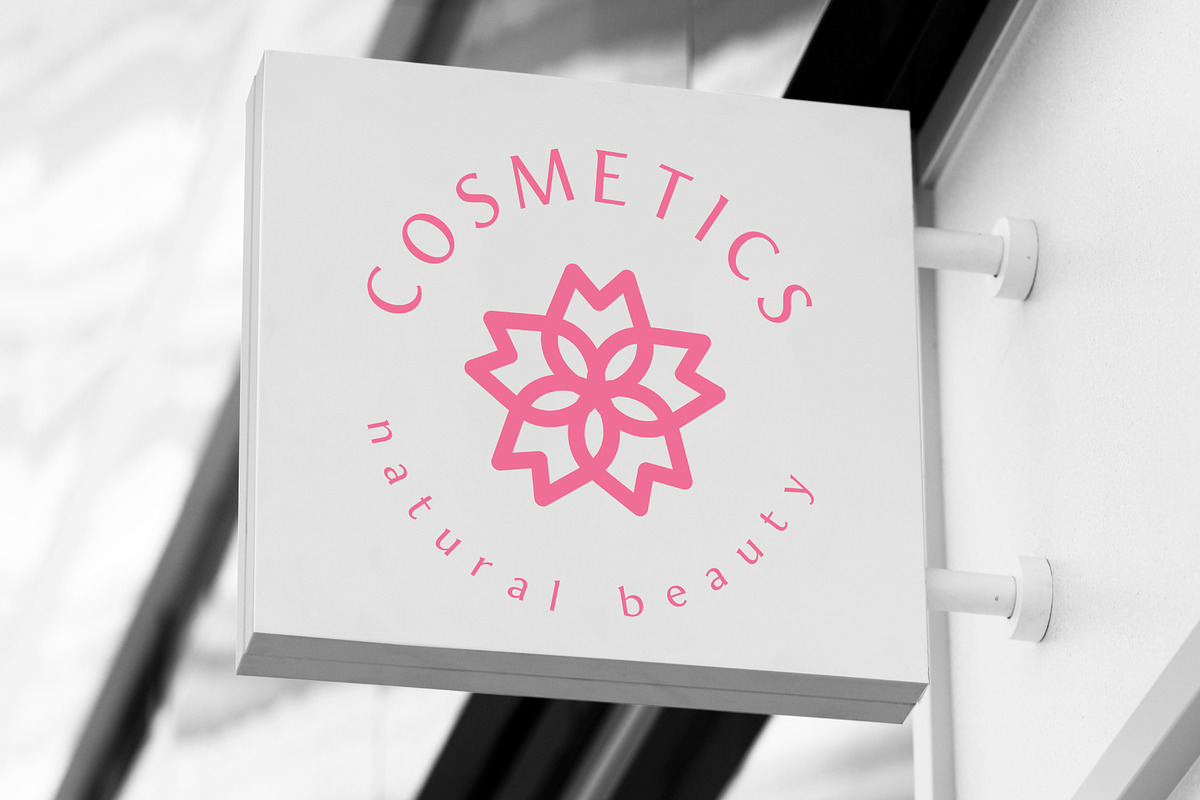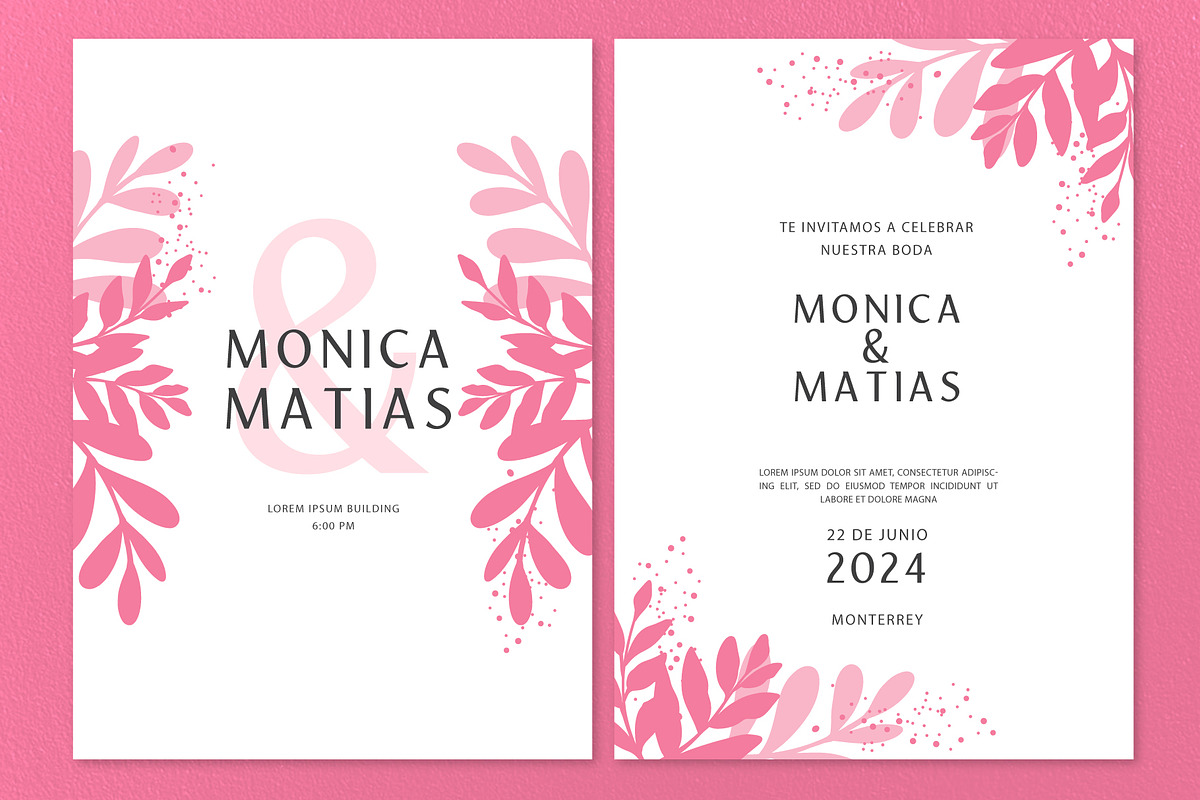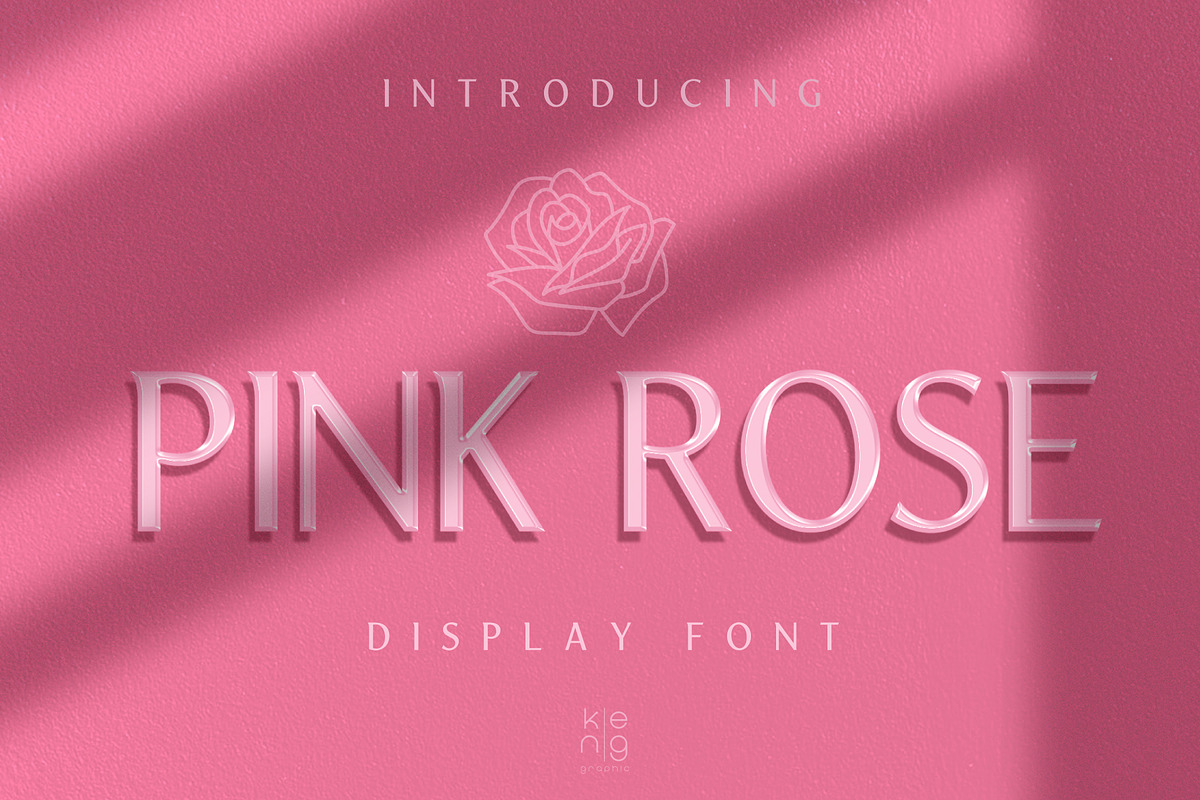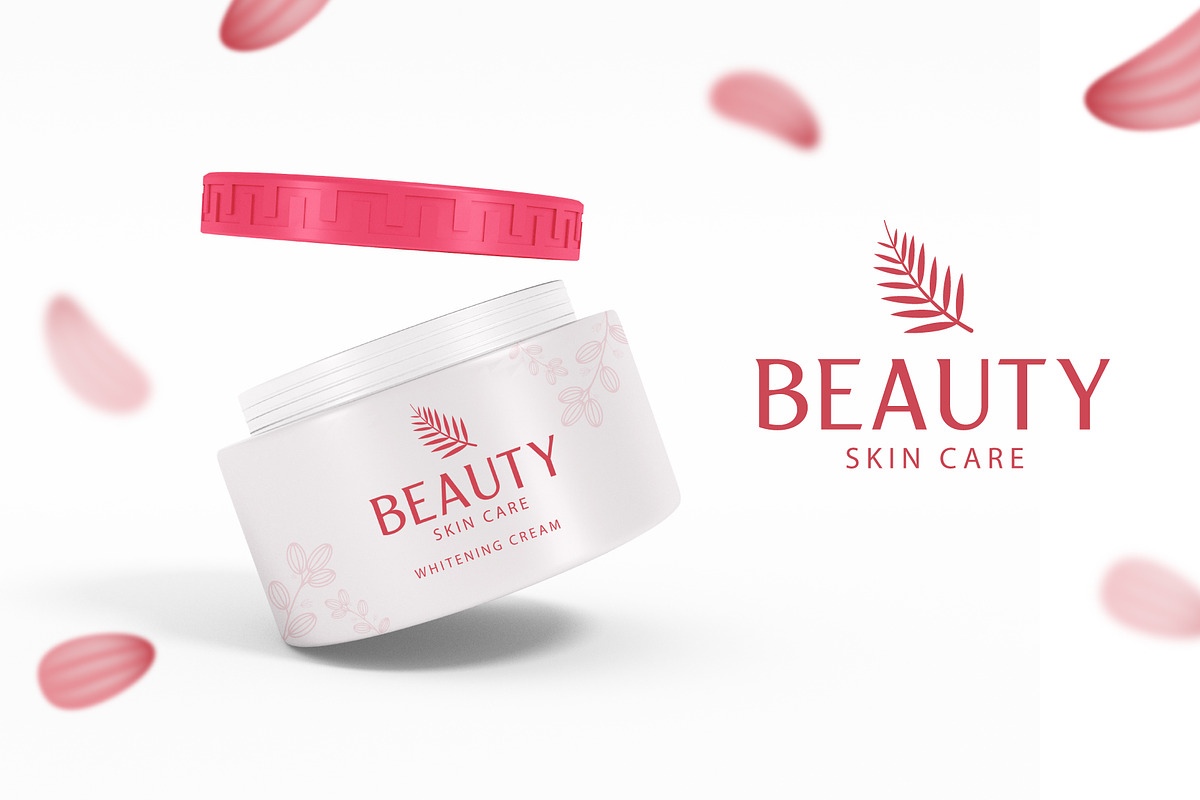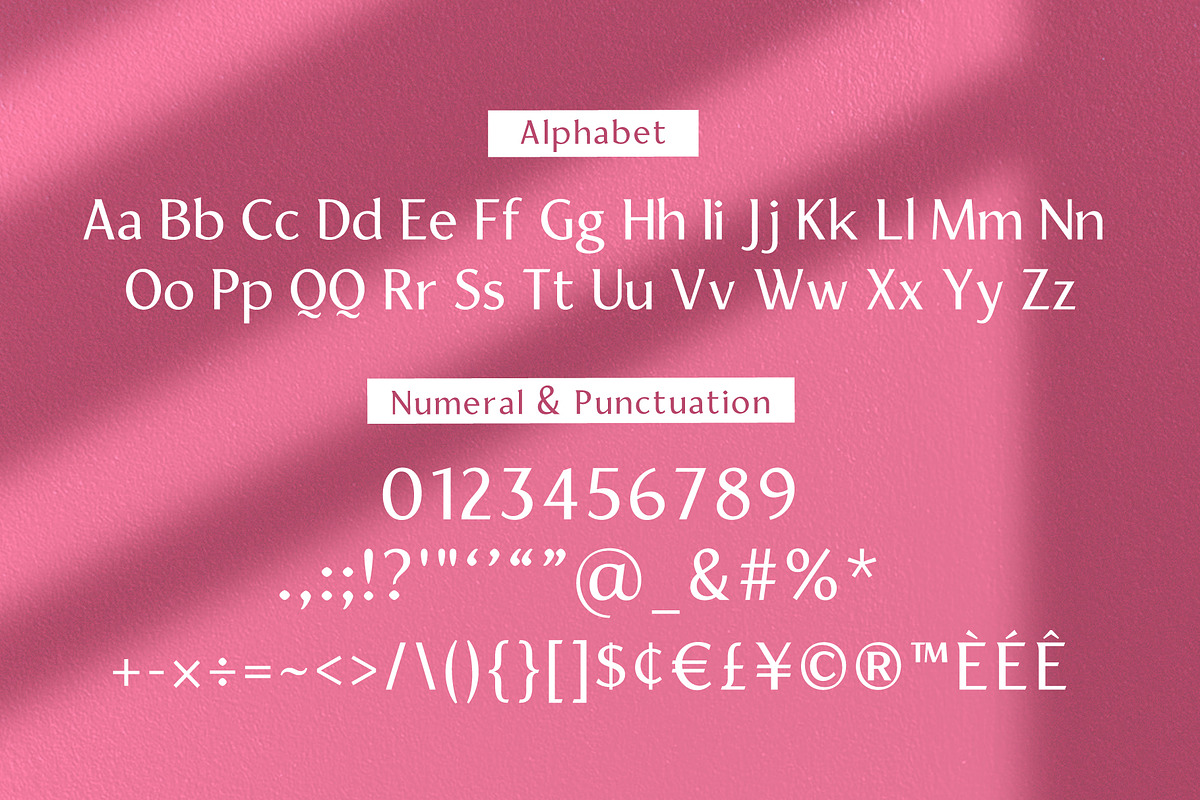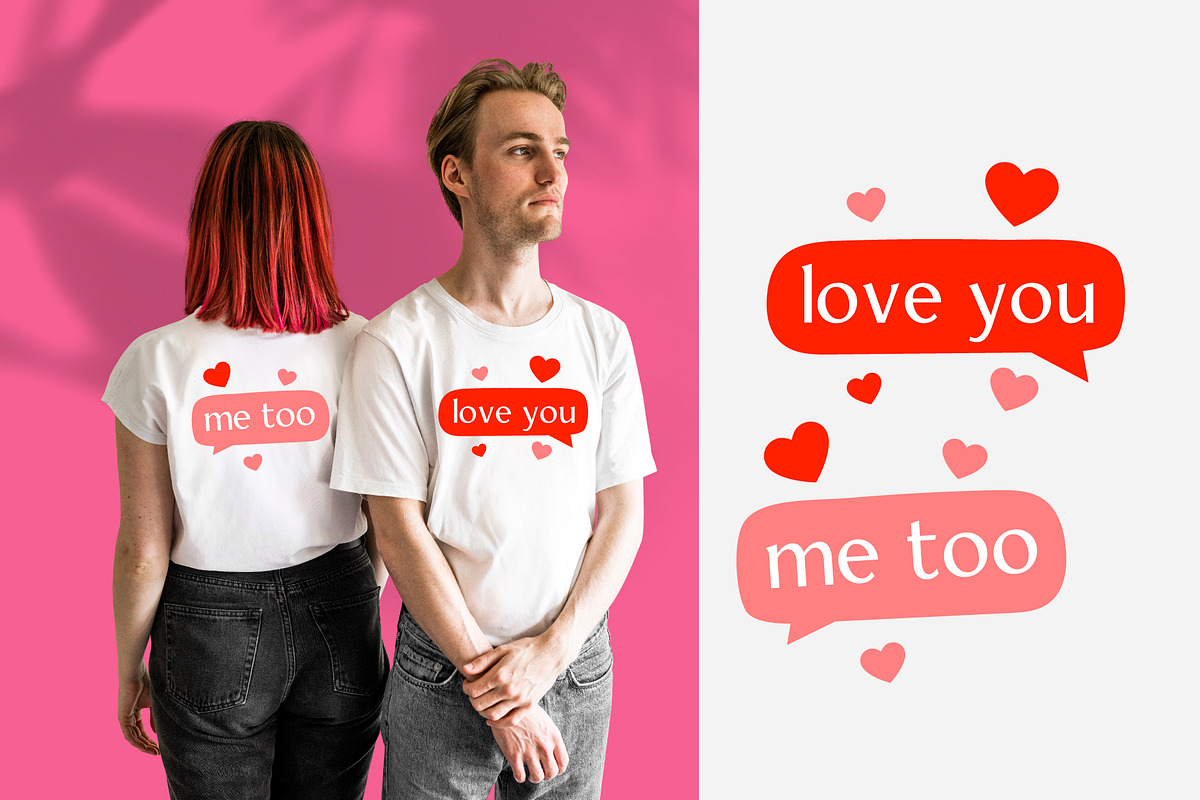
Pink Rose Font
Pink Rose is a sleek and modern slab serif font, expertly designed to give your creations a whimsical look. This font has the potential to continue your creative work.